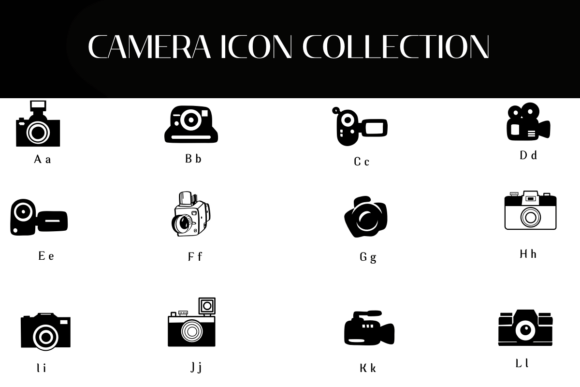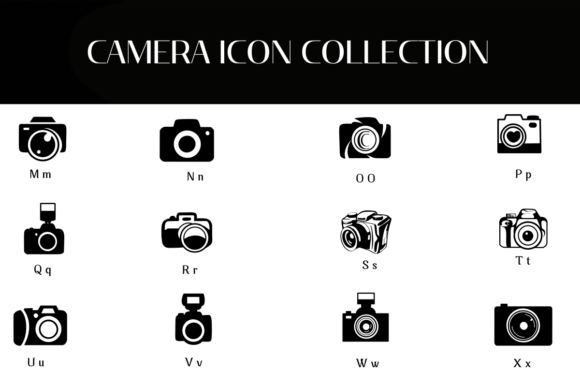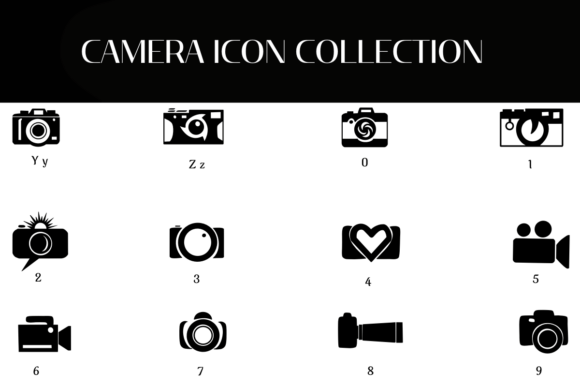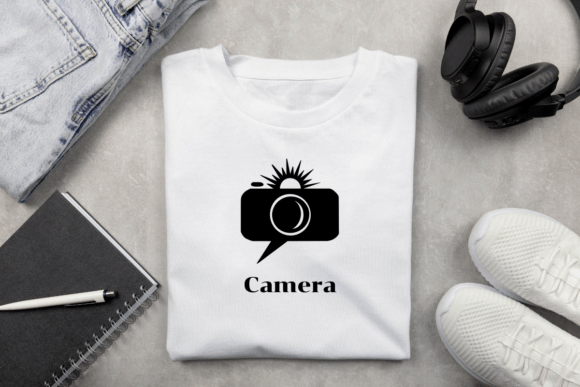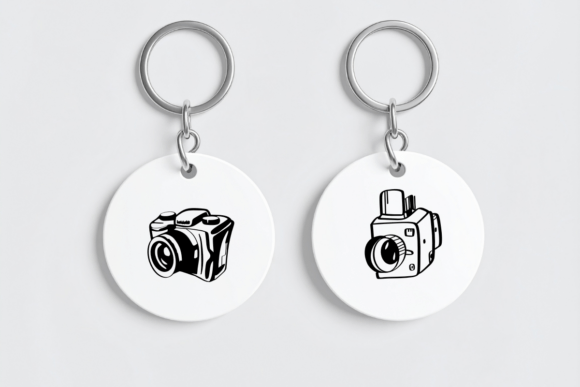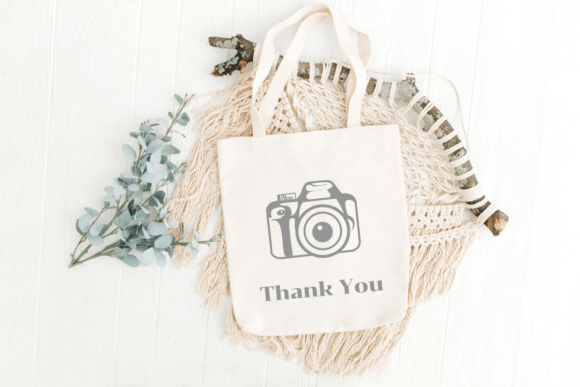
Introducing the Camera Icon Collection Font: A Photographer’s Dream Resource
Are you a designer, crafty DIY enthusiast, or a photography enthusiast looking for the perfect visual elements to elevate your projects? Look no further than the Camera Icon Collection Font, a comprehensive dingbats font family that features a diverse array of photography-themed symbols. This creative asset is a game-changer for anyone seeking to add a touch of photography flair to their designs.
A Diverse Array of Camera Icons
The Camera Icon Collection boasts an impressive range of camera styles, from classic vintage film models to professional DSLRs, modern camcorders, and stylized heart-shaped lens designs. Whether you’re looking to evoke a sense of nostalgia or showcase the latest technology, this font family has got you covered. The icons are meticulously designed to cater to various design needs, ensuring that you can find the perfect symbol to represent your brand, project, or creative vision.
Clean, High-Contrast Design
One of the standout features of the Camera Icon Collection is its clean, high-contrast black-and-white aesthetic. The icons are designed to be easily recognizable, making them perfect for use in a variety of applications, from digital app interface design to tutorial graphics and media-related marketing headers. The high-contrast design ensures that the icons remain crisp and clear, even when scaled up or down.
Attention to Detail
The creators of the Camera Icon Collection have paid close attention to detail, incorporating features like external flashes, lens flares, and varied body silhouettes into the designs. This level of attention to detail makes the icons feel more realistic and engaging, allowing you to create designs that truly capture the essence of photography.
Ideal for Photography Branding and Marketing
The Camera Icon Collection is an excellent choice for photography branding, digital app interface design, tutorial graphics, and media-related marketing headers. The icons can be used to create visually appealing logos, social media graphics, and website headers that instantly convey a photography theme. Whether you’re a professional photographer, a design agency, or a crafting enthusiast, this font family provides a versatile and creative solution for your design needs.
Designers and crafters will love the flexibility and creative possibilities offered by the Camera Icon Collection. The font family can be used for a wide range of projects, from:
• Photography website design and branding
• Social media graphics and tutorials
• Digital app interface design and development
• Crafting and DIY projects, such as scrapbooking and card making
• Marketing materials, including brochures and flyers
Key Benefits of the Camera Icon Collection
Here are some key benefits of using the Camera Icon Collection:
• Comprehensive set of photography-themed icons
• Clean, high-contrast black-and-white design
• Attention to detail, with features like external flashes and lens flares
• Ideal for photography branding, digital app interface design, and marketing materials
• Perfect for designers, crafters, and photography enthusiasts
The Camera Icon Collection Font is an invaluable resource for designers, crafters, and photography enthusiasts. With its diverse array of camera icons, clean design, and attention to detail, this font family is sure to elevate your projects and help you create stunning visual content. Whether you’re looking to create photography-themed branding, marketing materials, or simply want to add a touch of photography flair to your designs, the Camera Icon Collection is an excellent choice.